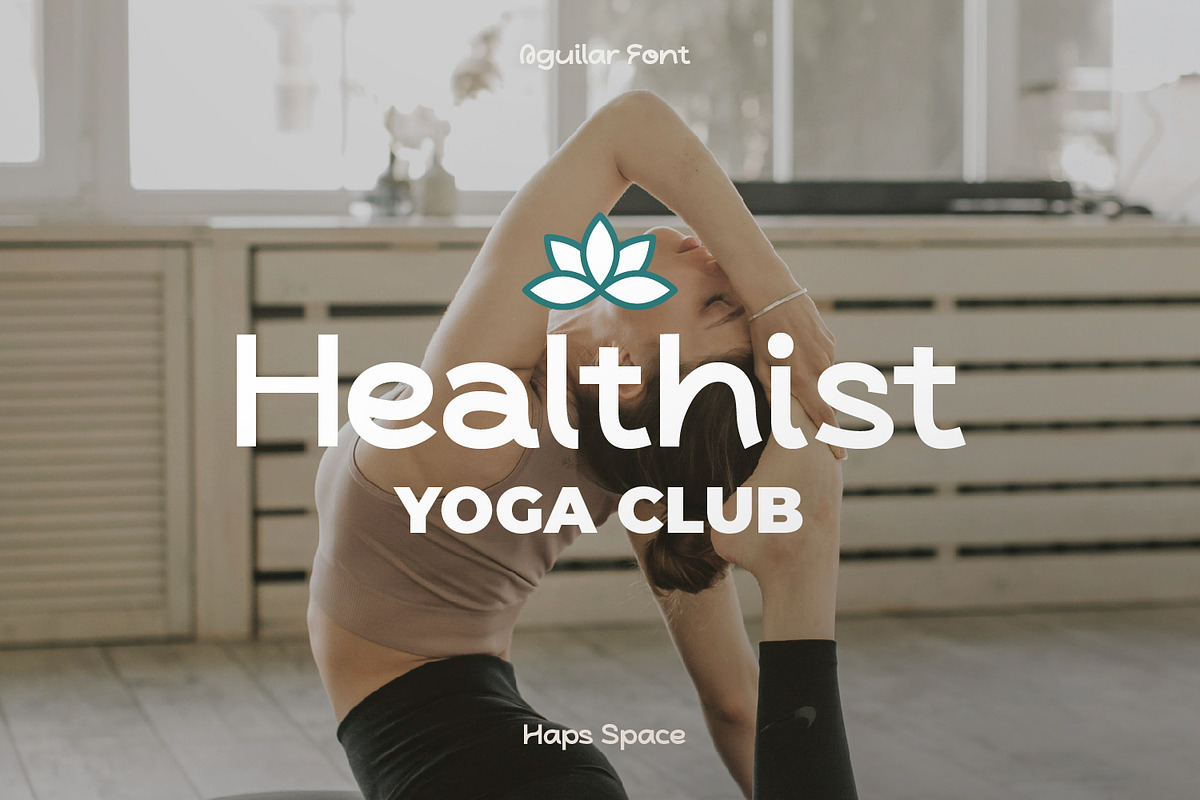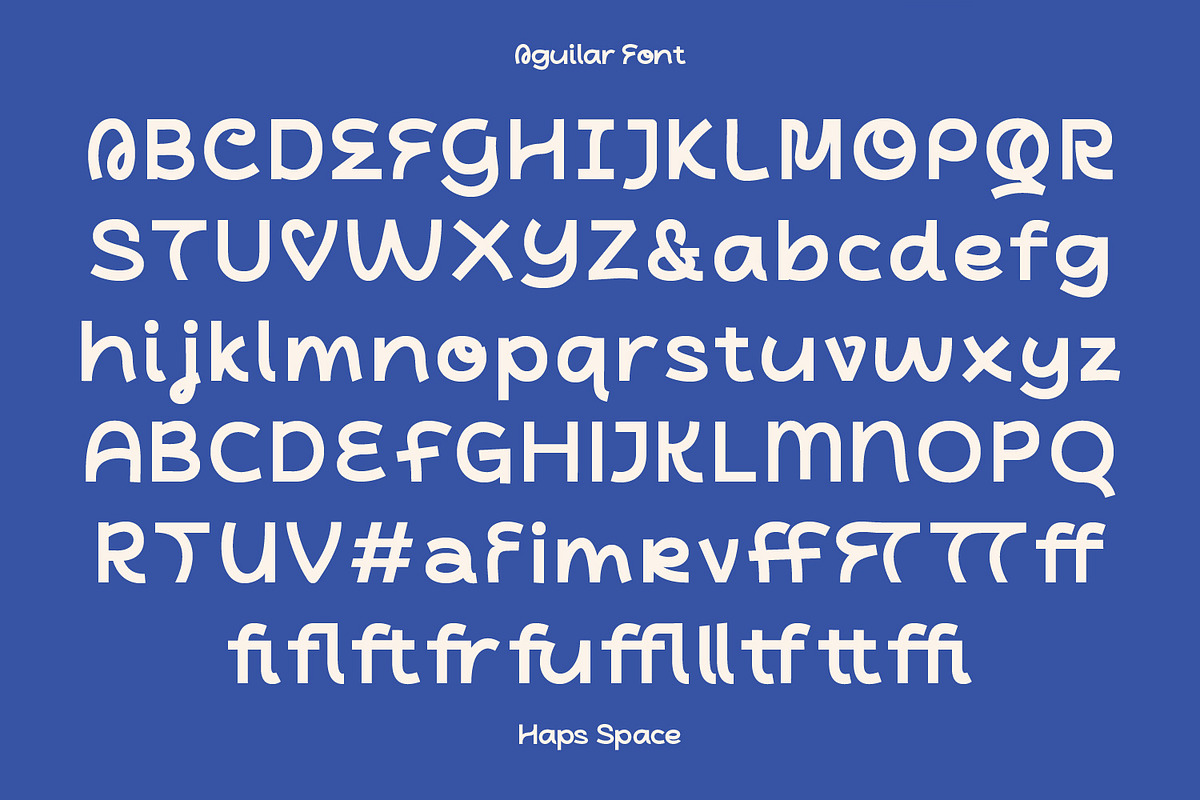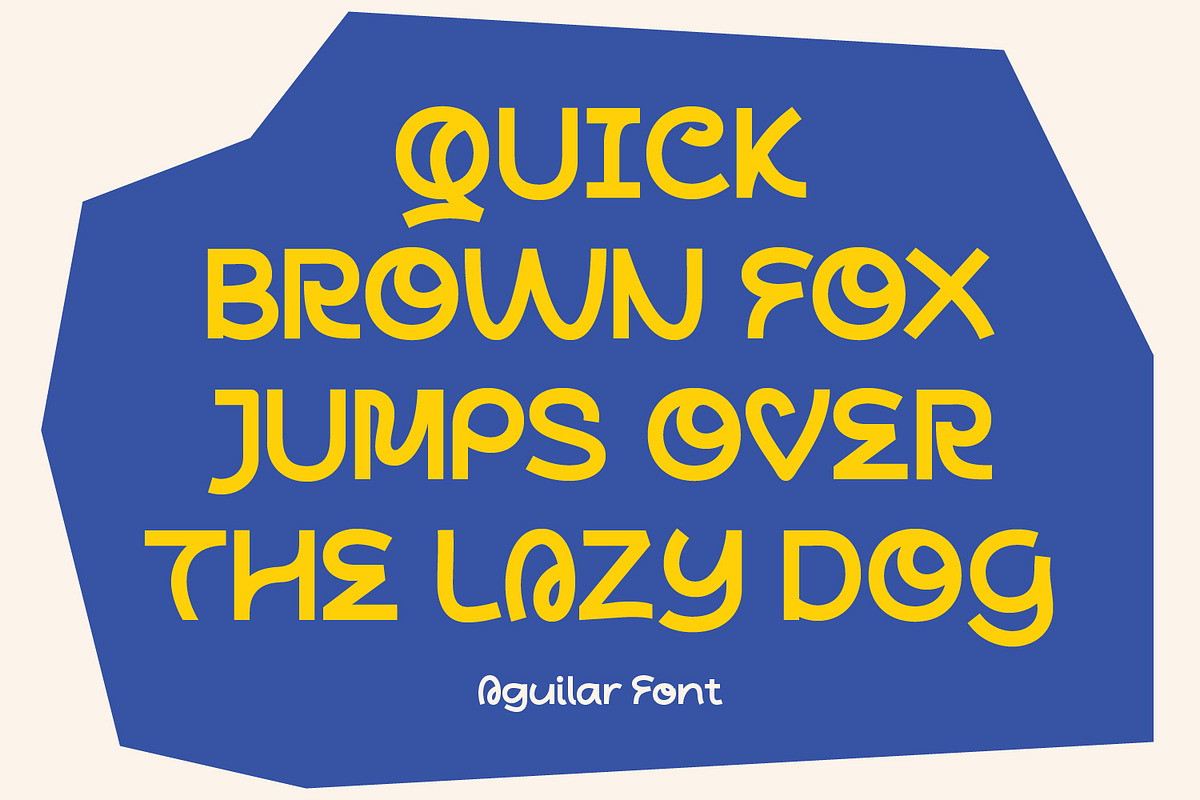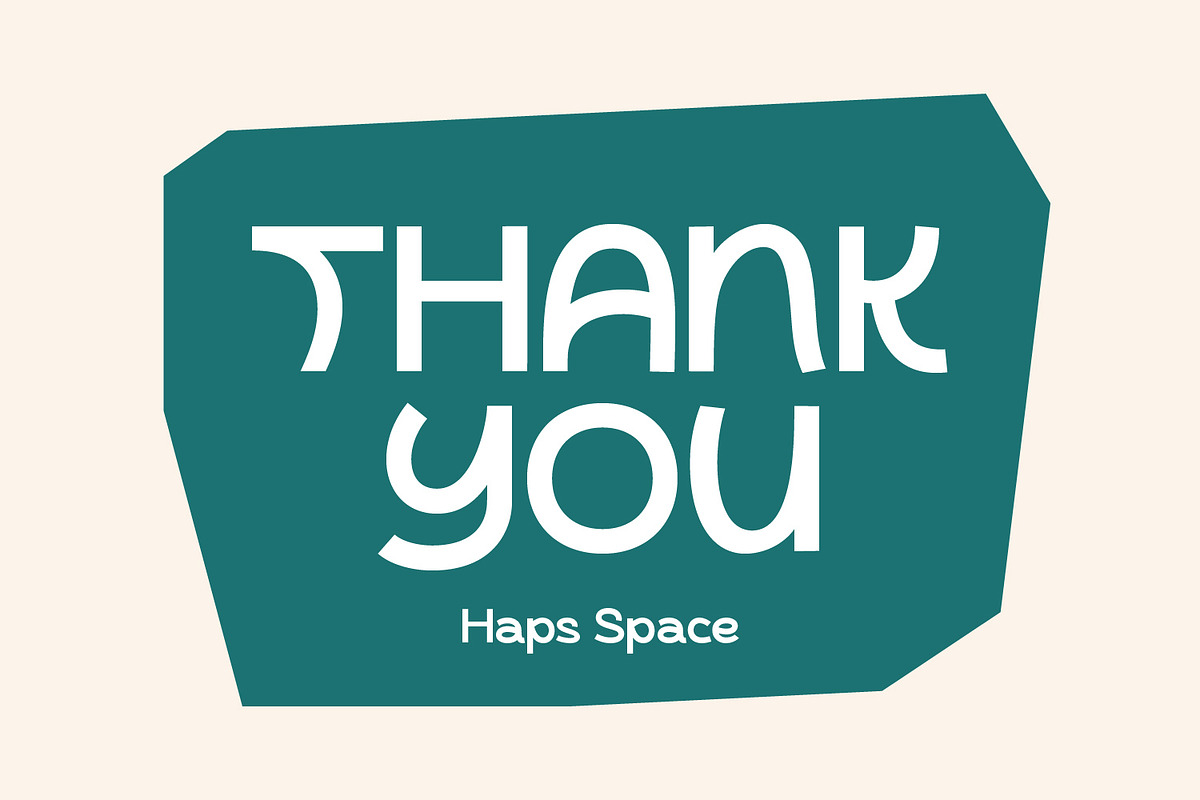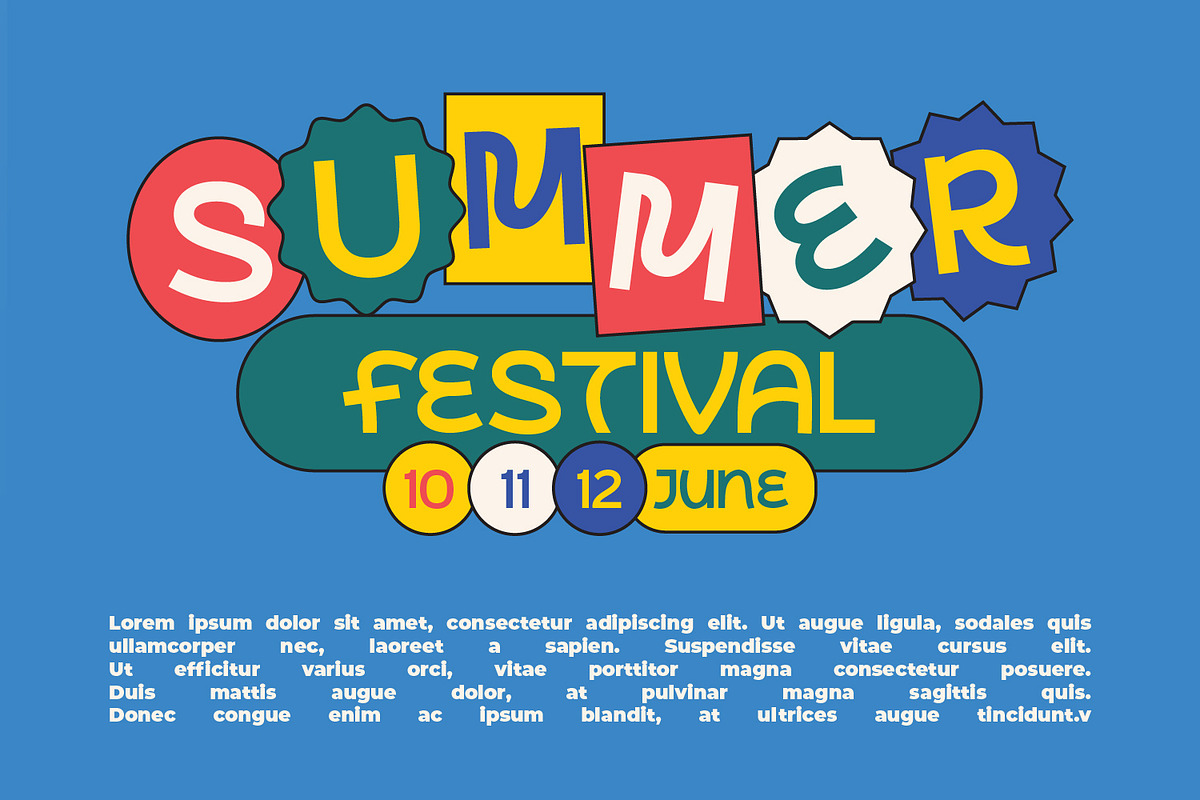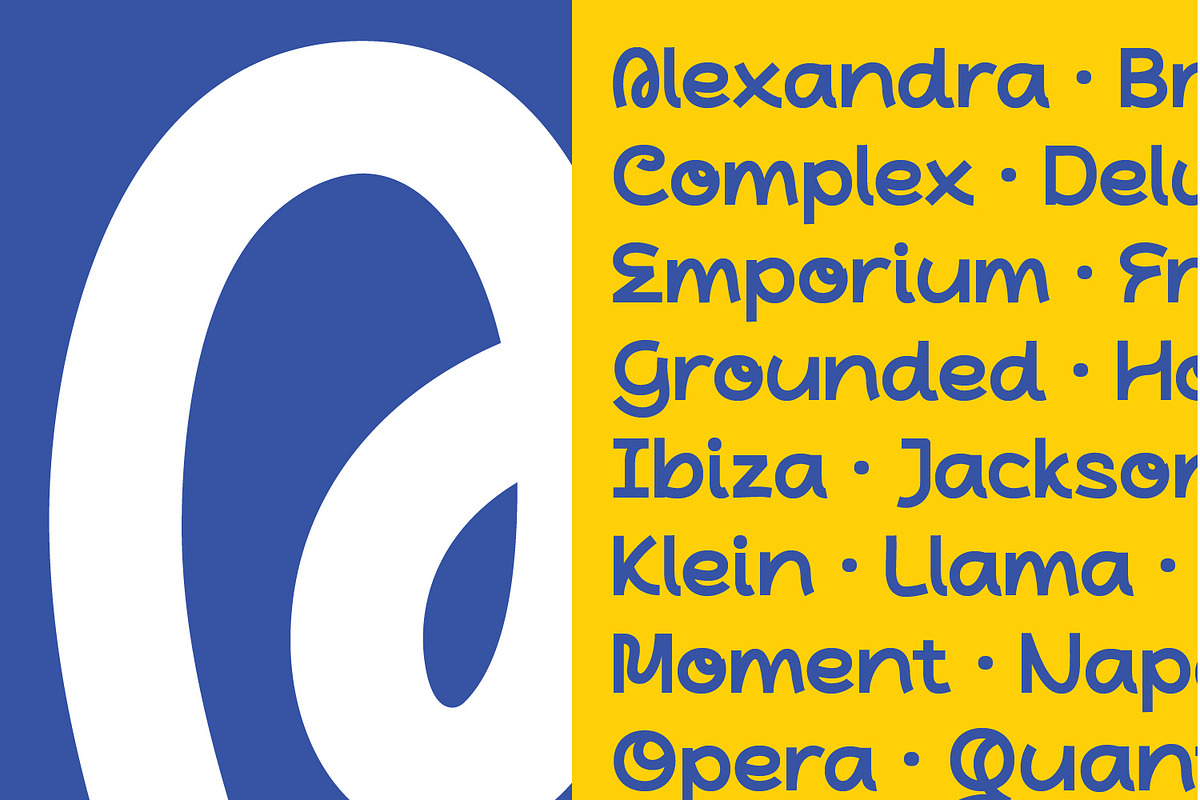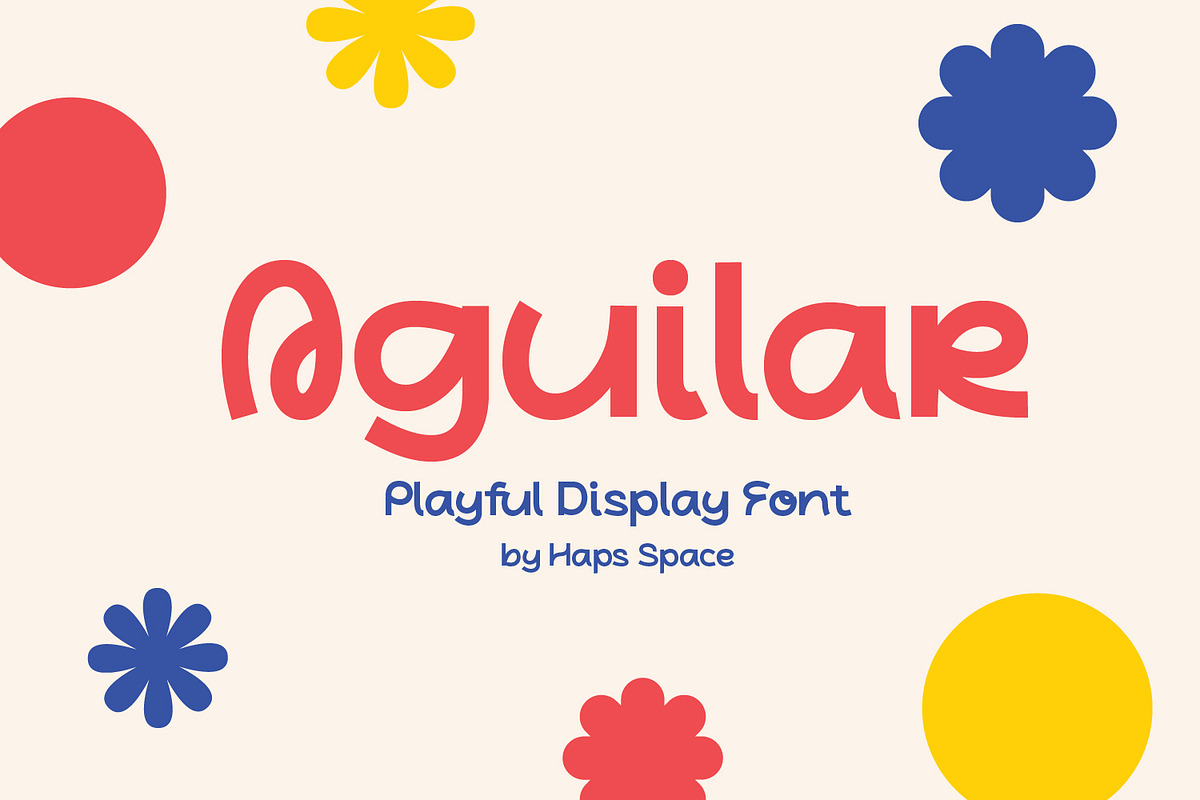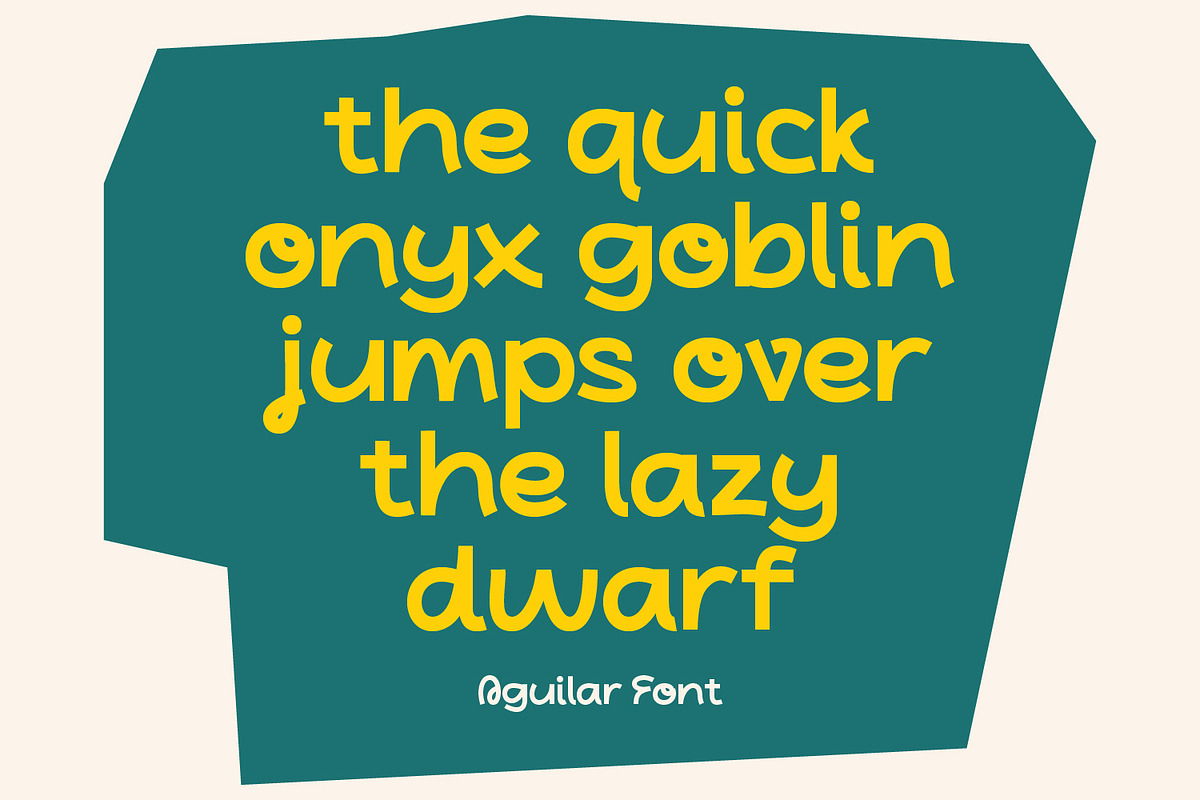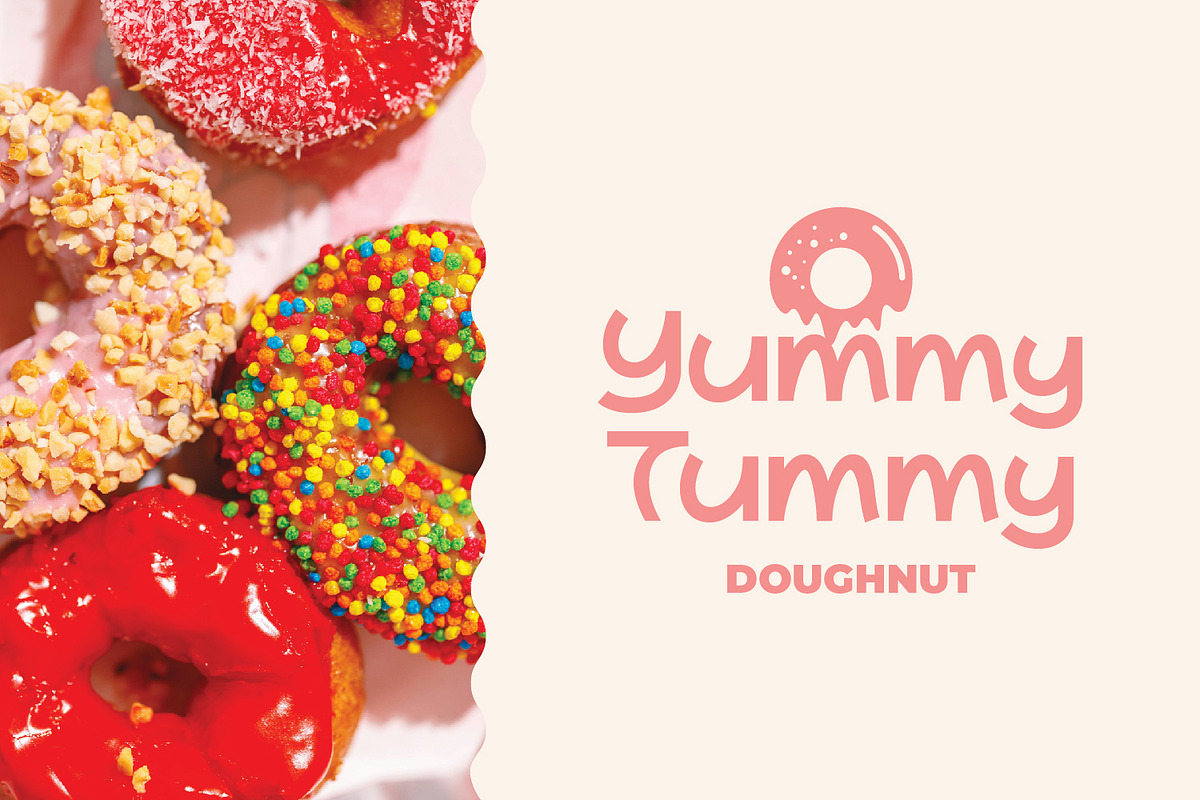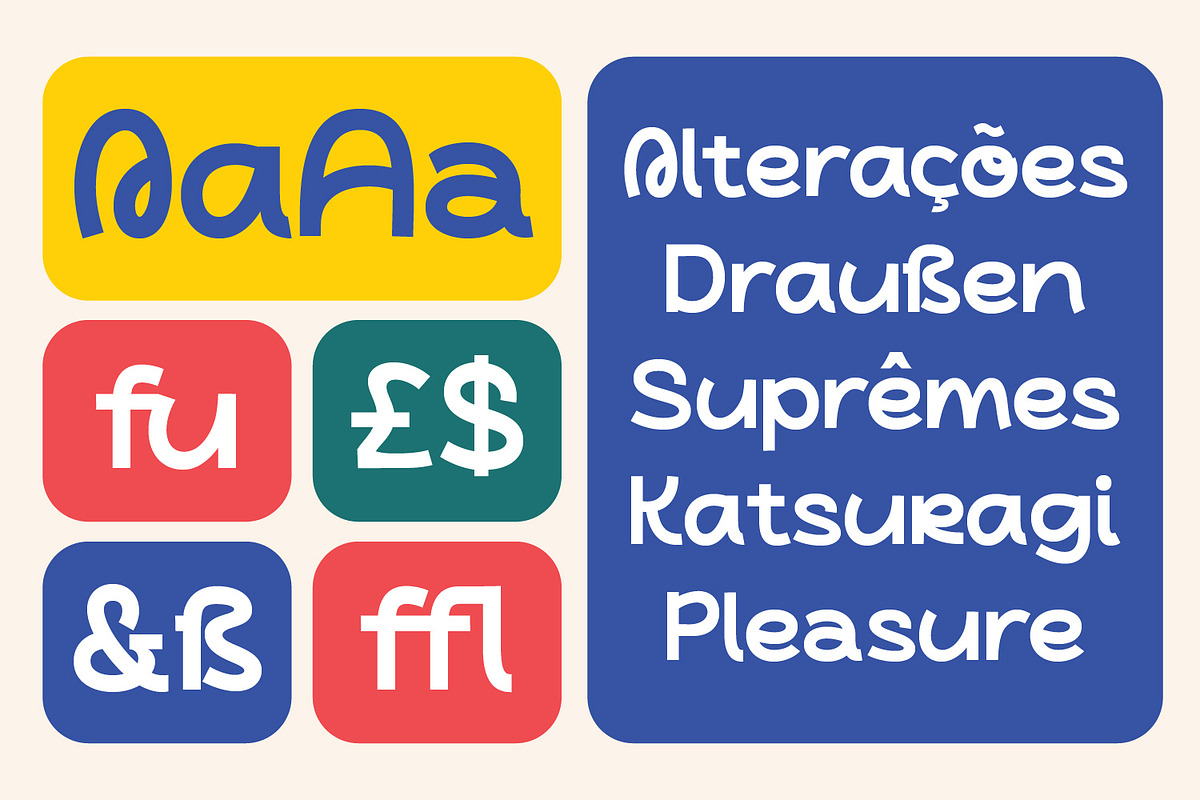
Aguilar - Playful Display
Aguilar Playful Display Font is a Playful Sans-Serif comes with alternatives and ligatures, helps to create stunning Posters, Branding, Tshirt, Social Media Graphics and much more.